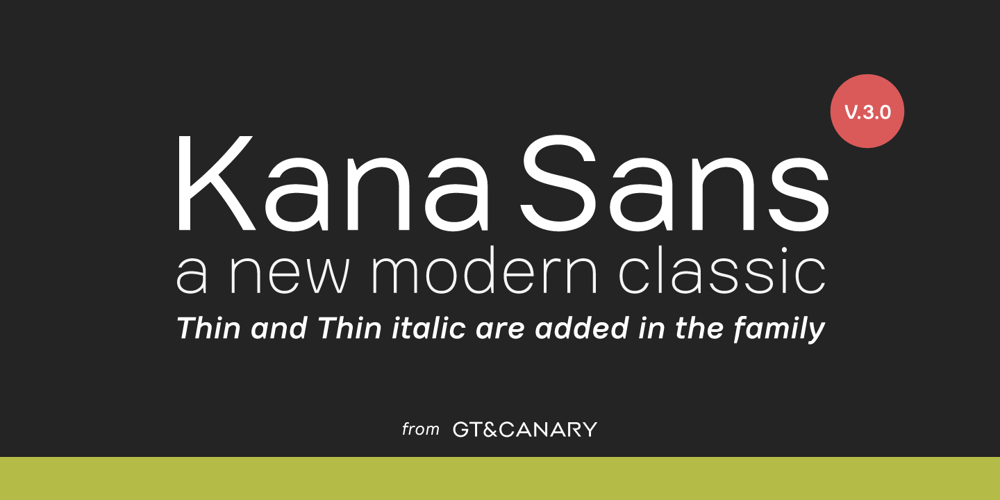
Kana Sans Font Family was designed by Takaaki Goto and published by GT&CANARY. Kana Sans contains 12 styles and family package options. A new modern classic. Kana Sans is a versatile sans serif font family that’s ideal for building a contemporary yet timeless brand look. Inspired by iconic typography, Kana Sans is designed to be balanced, modern and easily adaptable to web, print, and signage applications. From fashion to corporate industry, this font gives the designer full flexibility to express his/her vision. With Six different weights and matching italics, Kana Sans is a powerful communication tool for today.